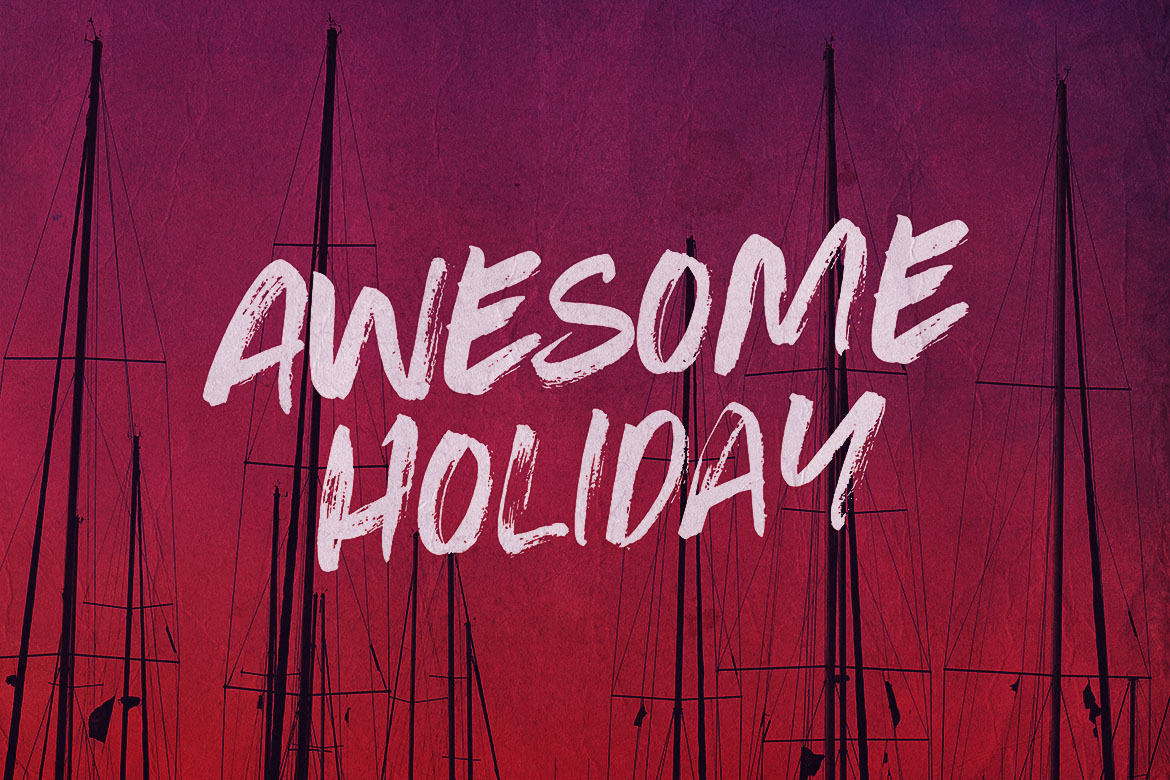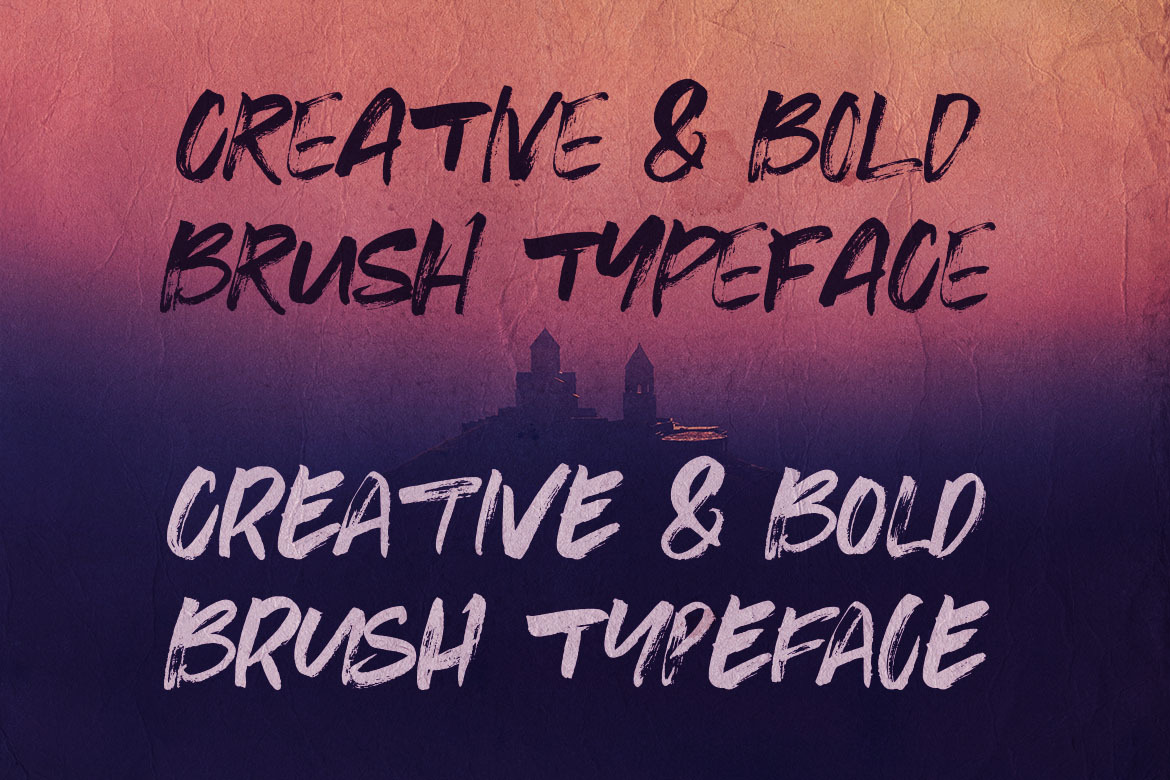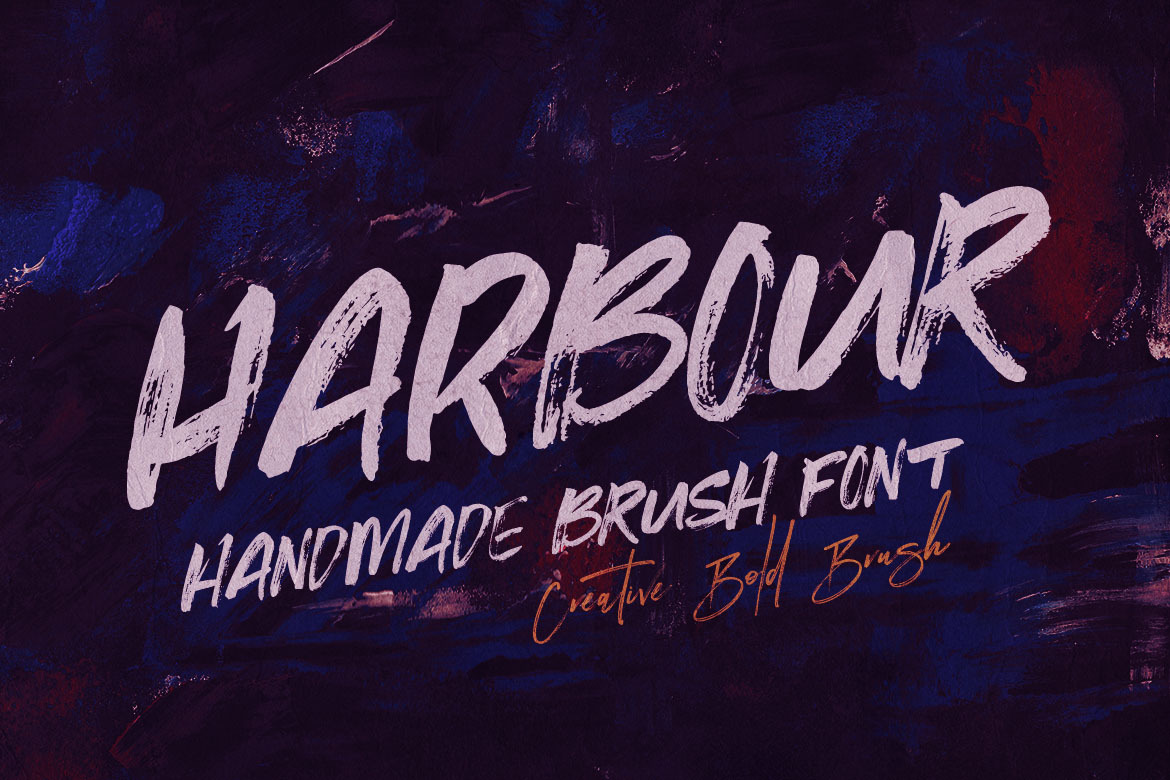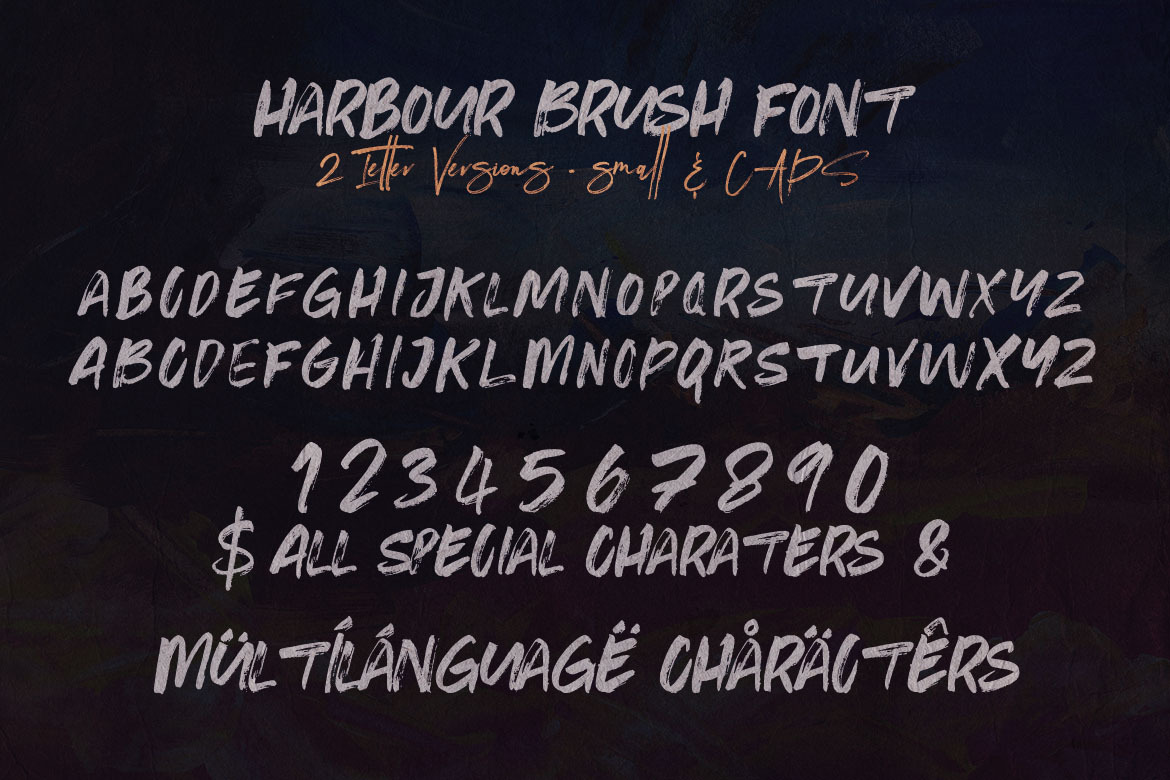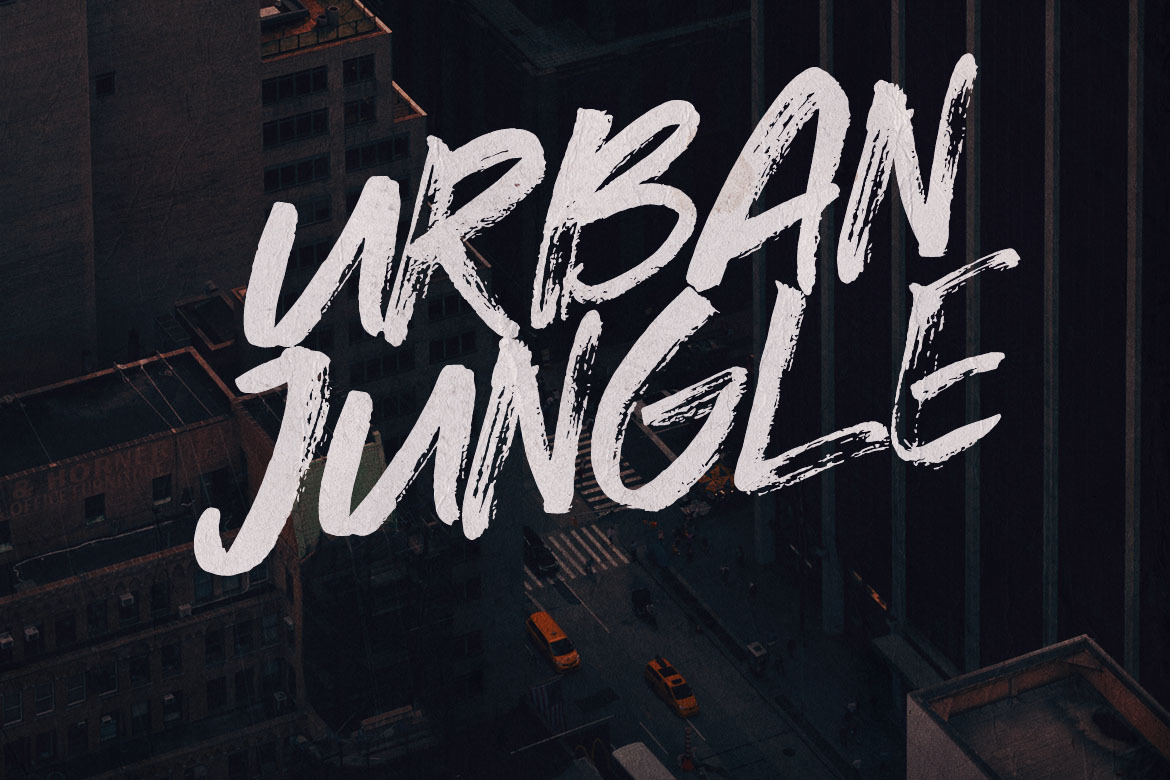
Harbour Brush Font by Cruzine | Creative Market
Intro SALE - only $9 for a limited time! Regular price is $12! Enjoy :) Bold brush & grunge style sans display font for your new projects. Great for grunge, urban, freestyle or artistic projects! - regular OTF font & web font - multilanguage support For any help regarding this font, please feel free to contact me through my profile page and I’ll be glad to offer support. | Harbour Brush Font | Cruzine